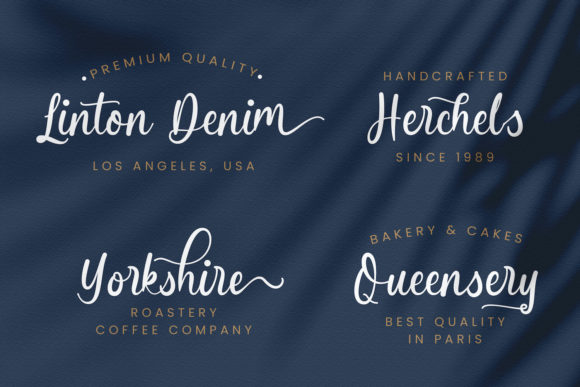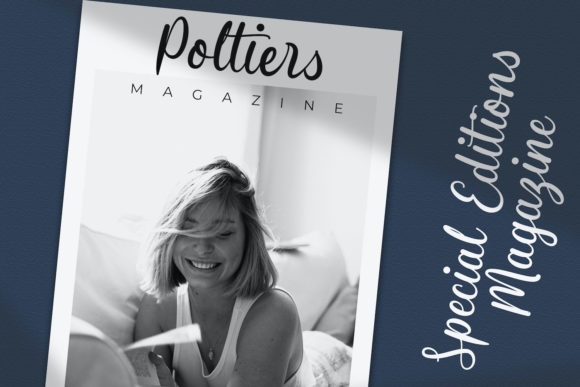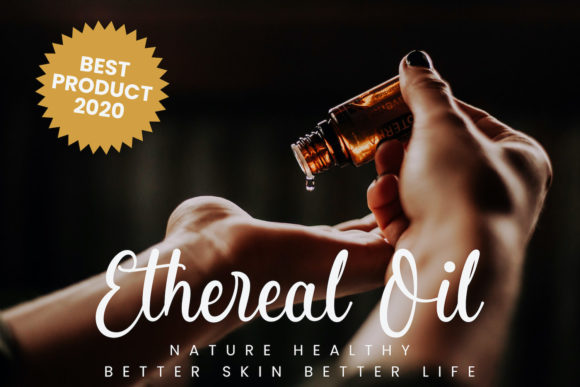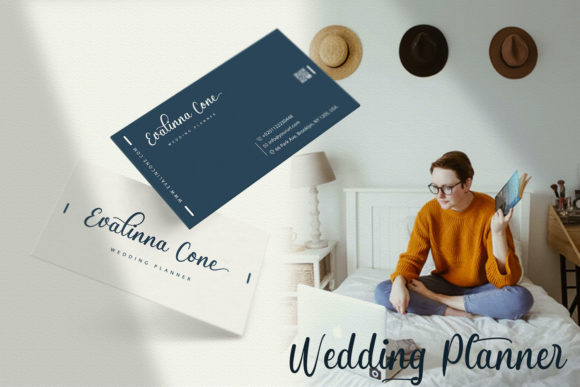
About Butterfly Winter Font
Butterfly Winter is a delicate and elegant hanwritten script font that is beautiful and well-balanced. Add it to your most creative ideas and notice how it makes them come alive. This font is PUA encoded which means you can access the available glyphs and swashes with ease!